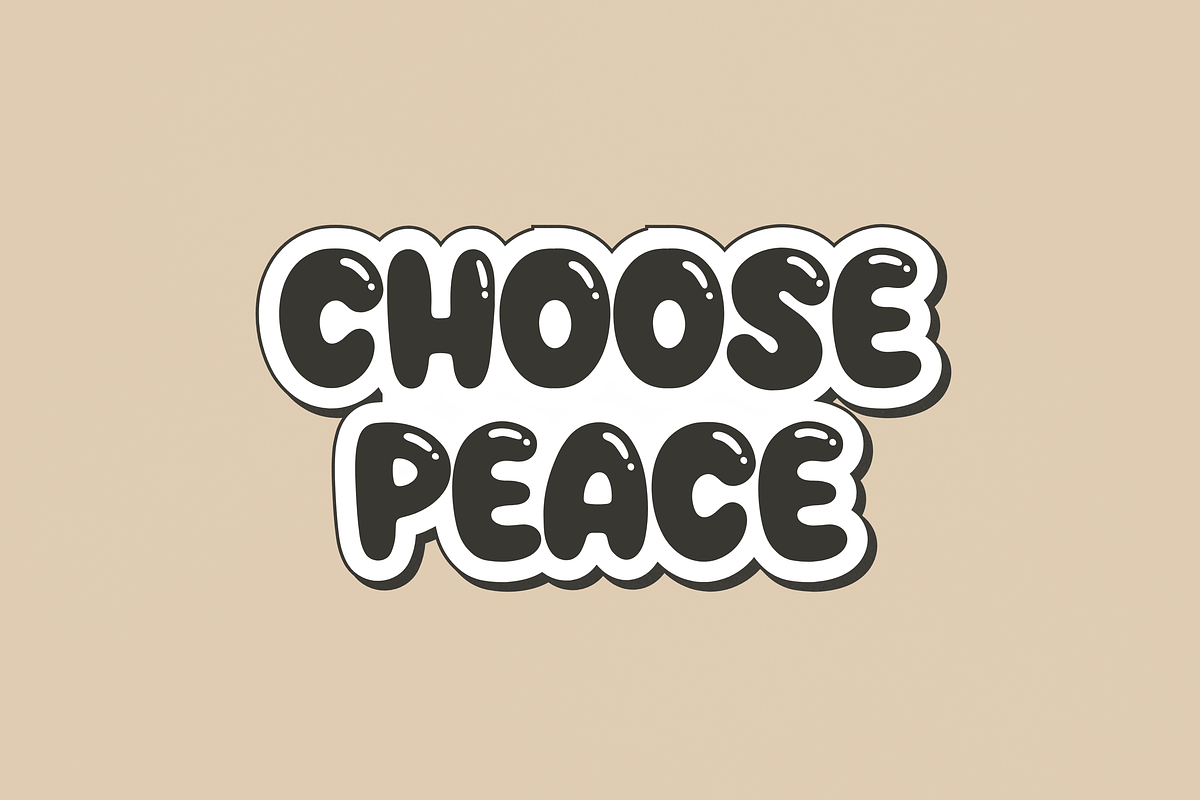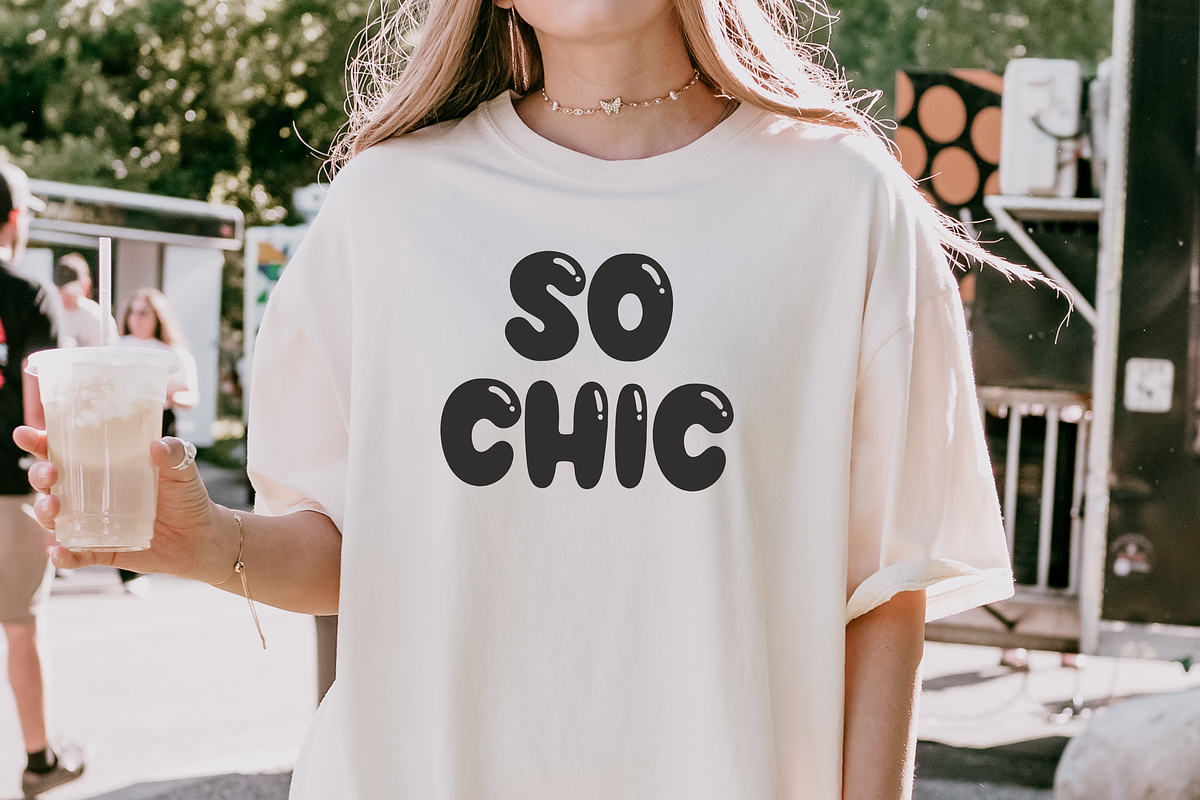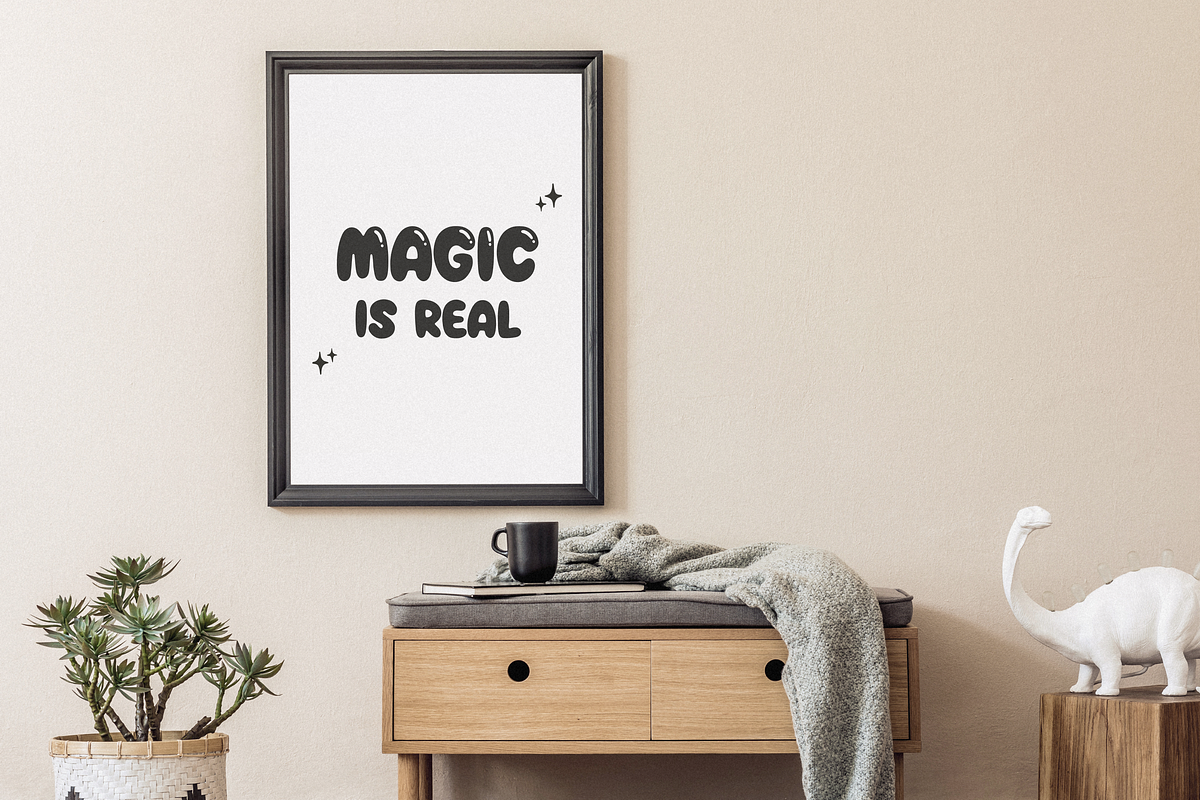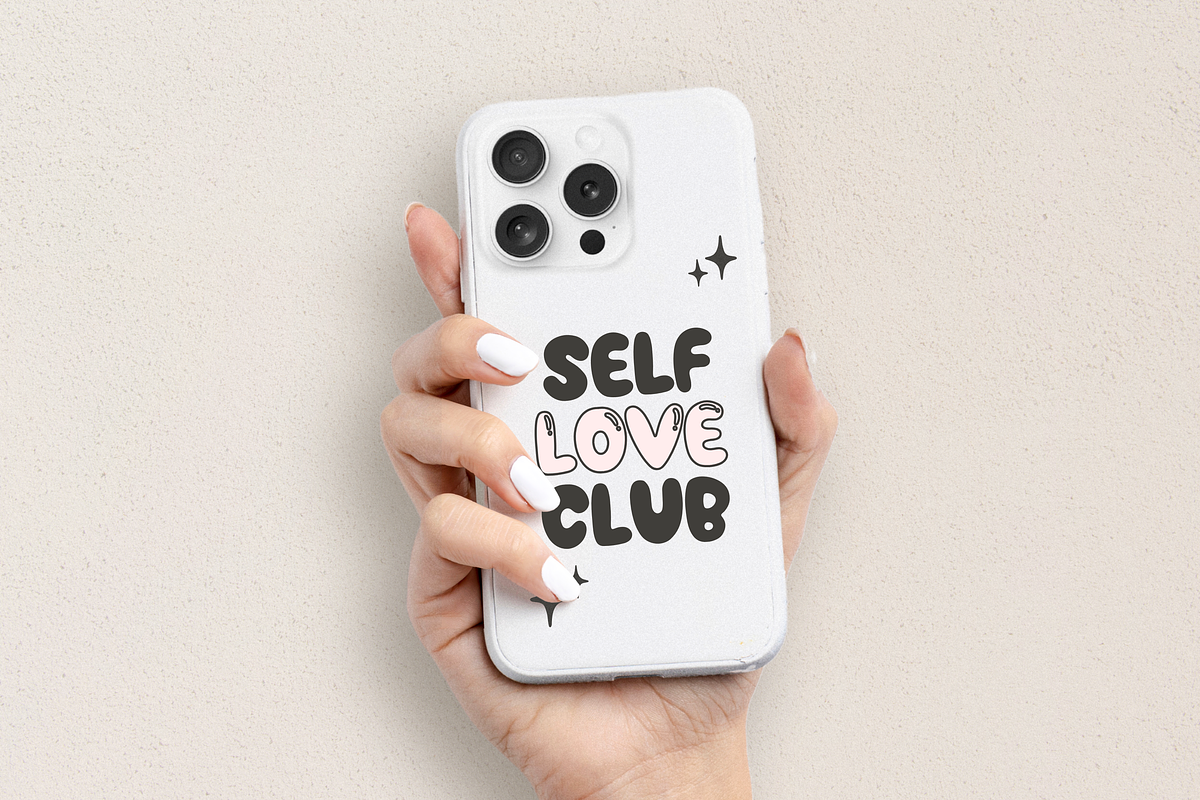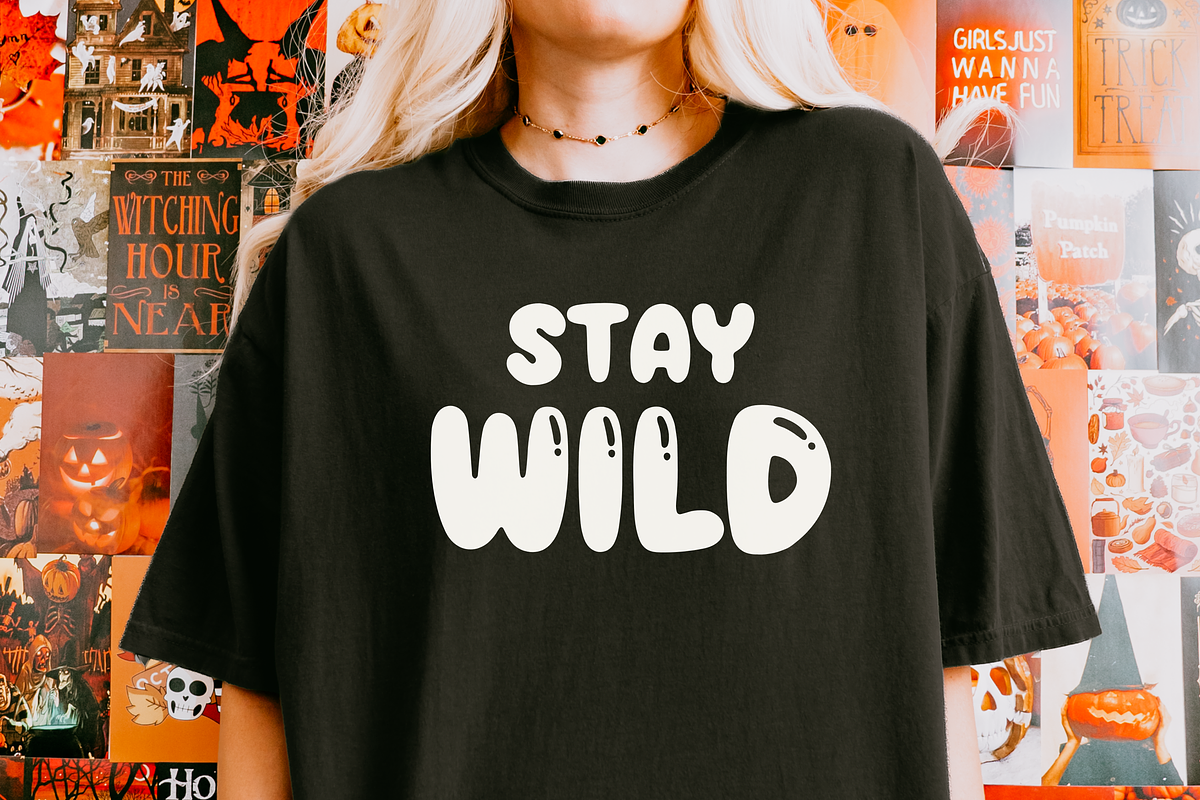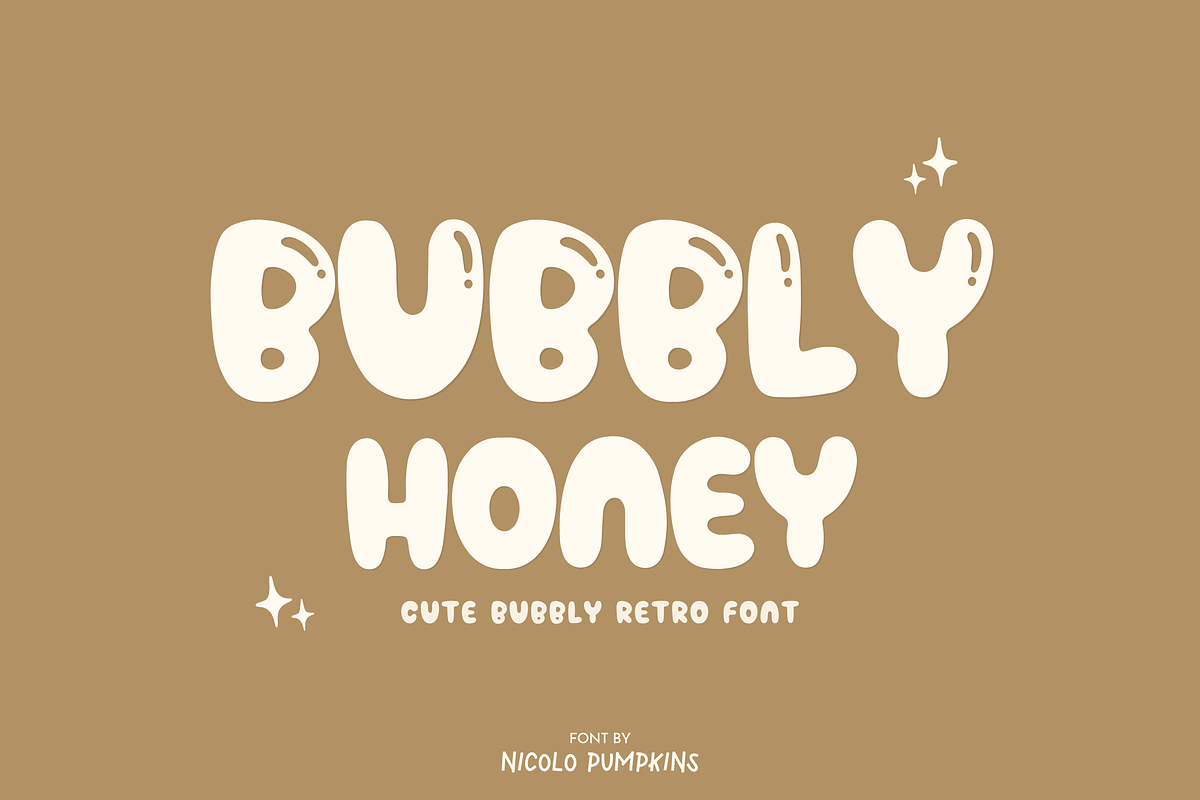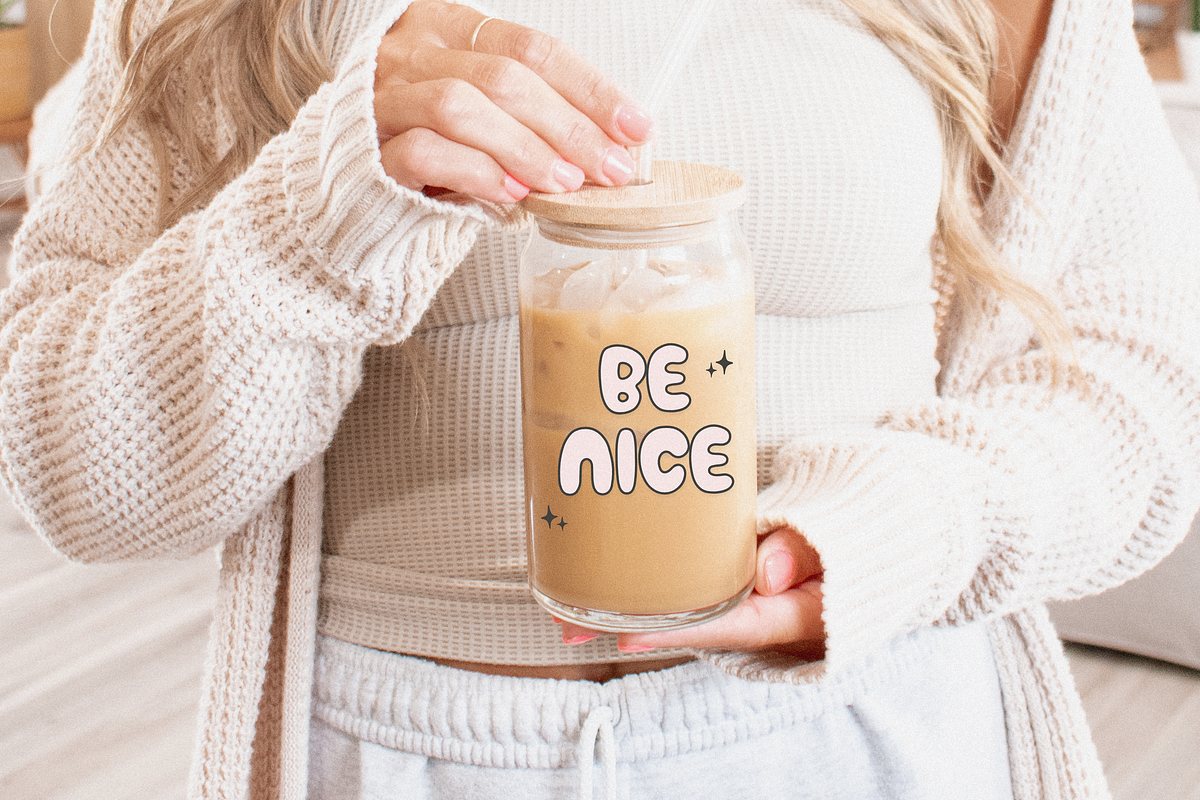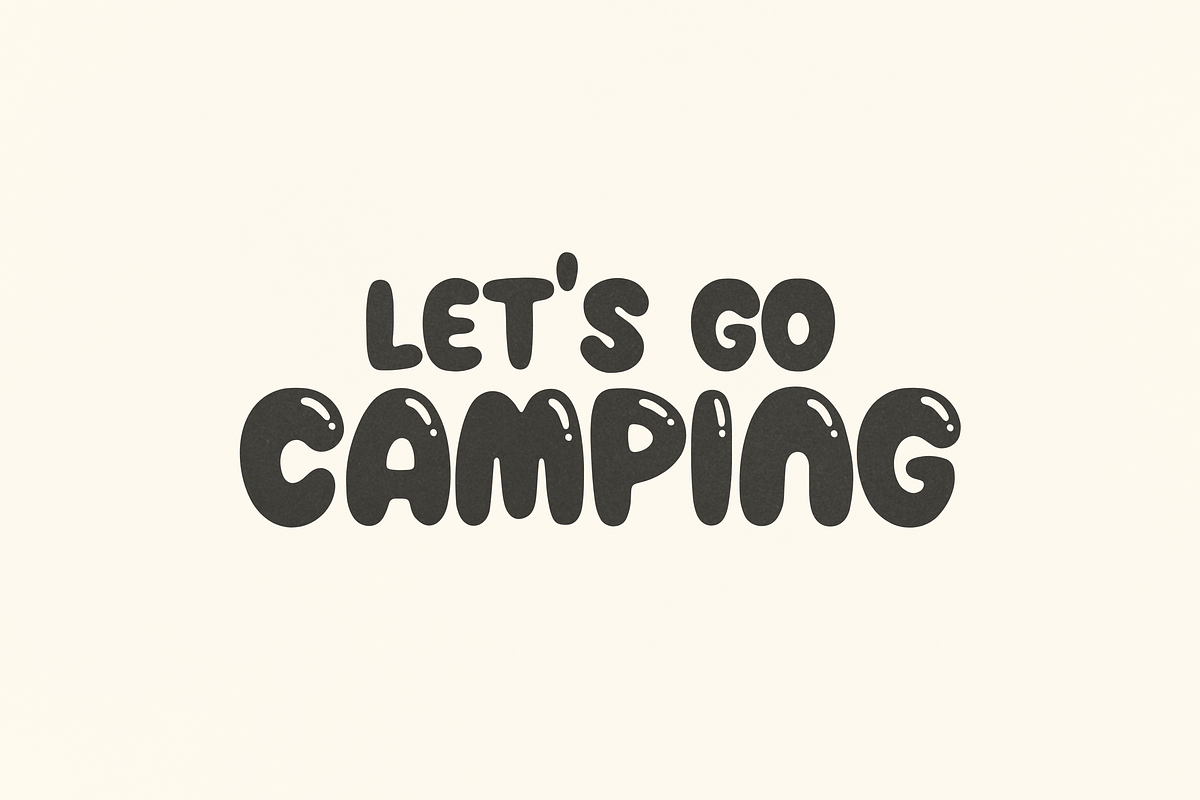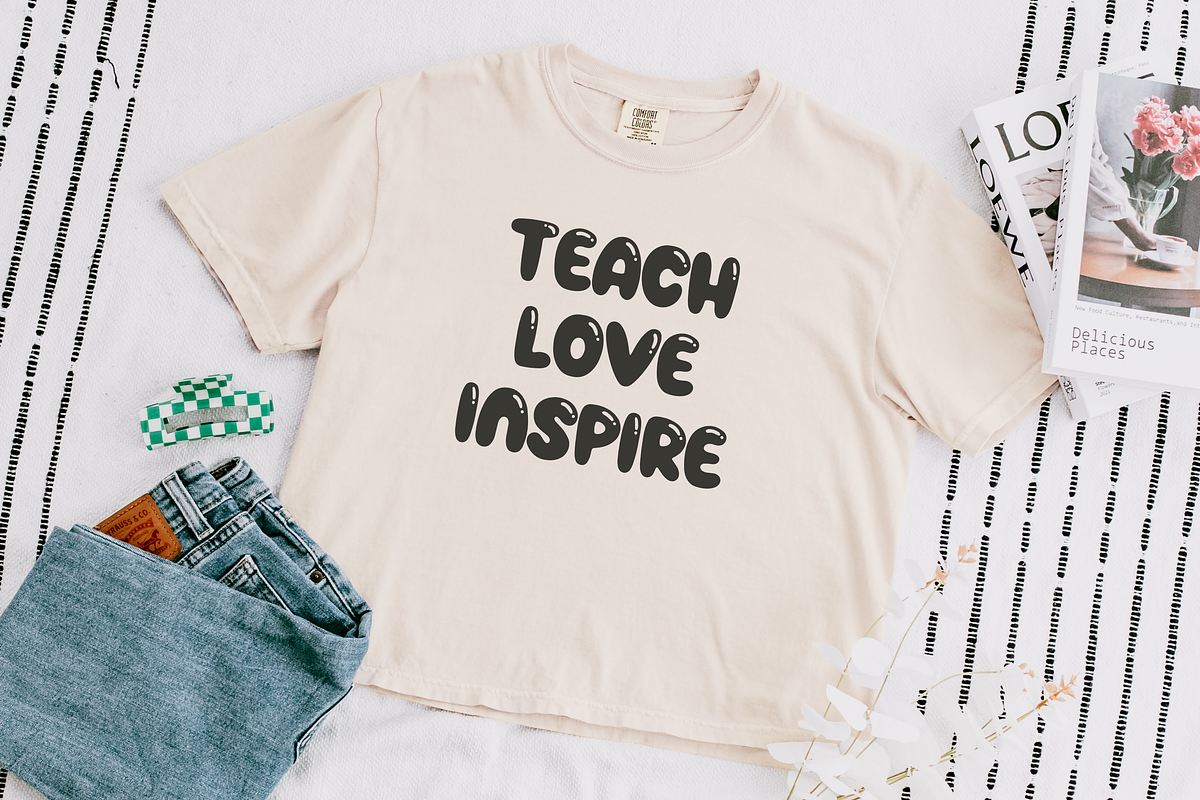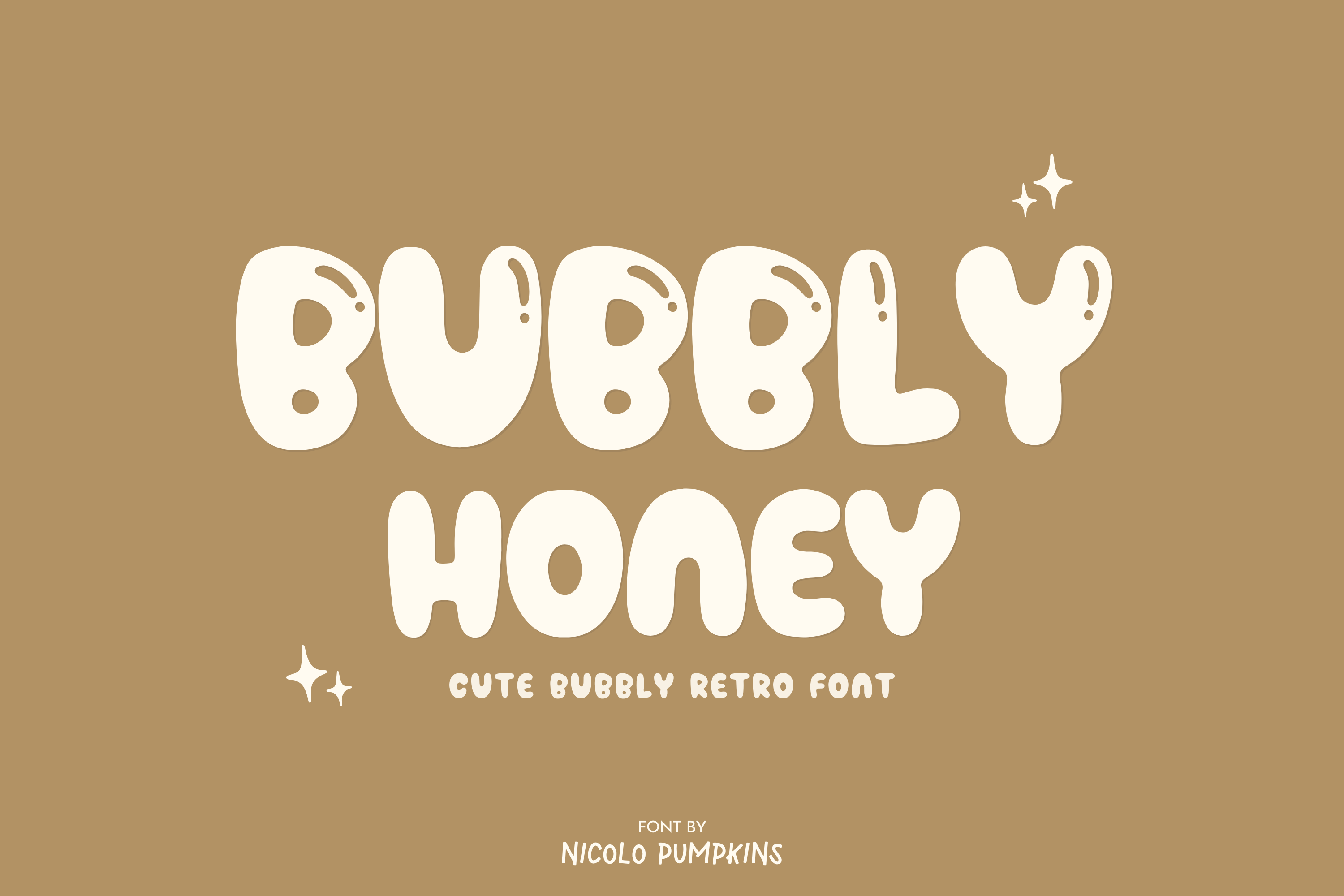
Bubbly Honey Font
Bubbly Honey FONT A cute bubbly retro display font with 70s, shiny and hippie style
Bubbly Honey is an ALL CAPITAL FONT.
✦ Bubbly Honey FONT is perfect for: shirts, mugs, logos, wedding invitations, poster, greeting cards, social media, branding, Procreate, Cricut and more!